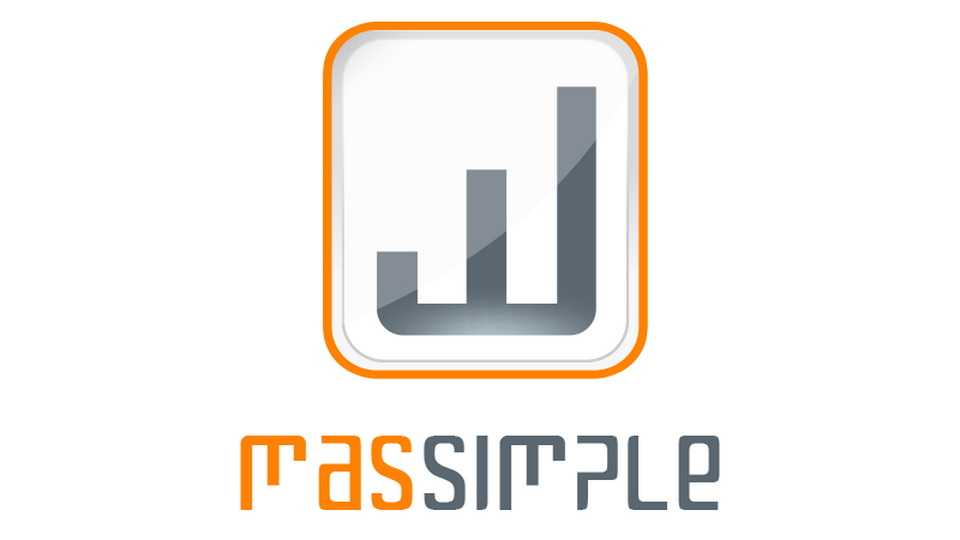
Download MasSimple font, a geometric display typeface with a minimalistic and futuristic look. MasSimple font is perfect for logos, technology and sci-fi projects, games, posters and so on.